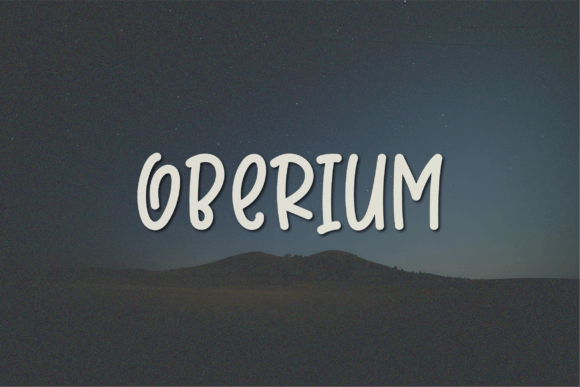
Prepare to fall head over heels for Oberium, the enchanting all-caps sans serif font that will ignite your imagination and bring your creative visions to life. Crafted by the renowned Becraft, Oberium exudes a playful and quirky personality that will add a touch of whimsy to any project. Whether you're designing captivating digital masterpieces, creating heartfelt greeting cards, or crafting unforgettable presentations, Oberium has the versatility to elevate your creations to new heights. Its playful nature makes it perfect for capturing the innocence and joy of childhood, making it an ideal choice for baby-related designs.
With Oberium at your fingertips, you'll embark on a creative adventure filled with boundless possibilities. Its charming character will add a touch of magic to your designs, leaving a lasting impression on your audience. So, dive into the world of Oberium and let your imagination soar.